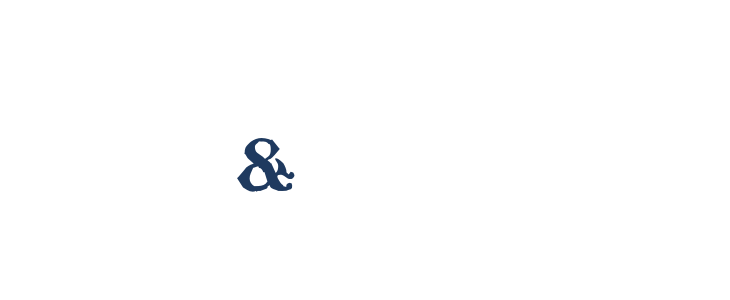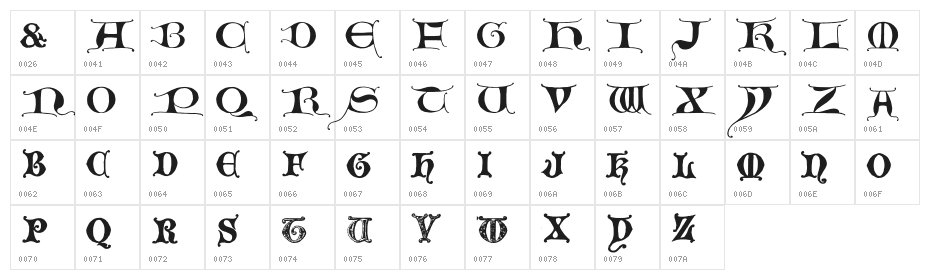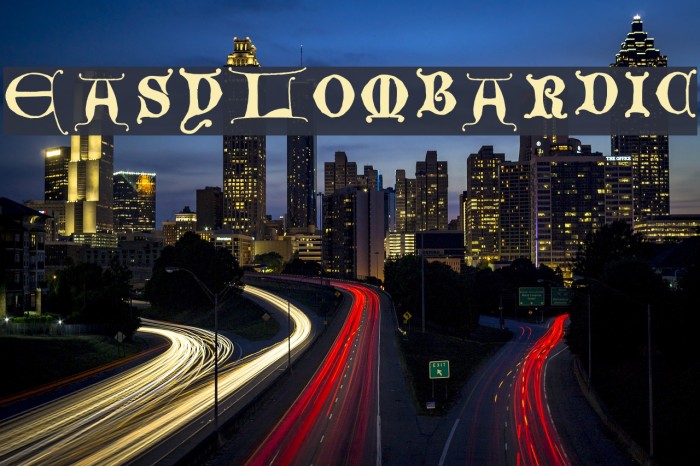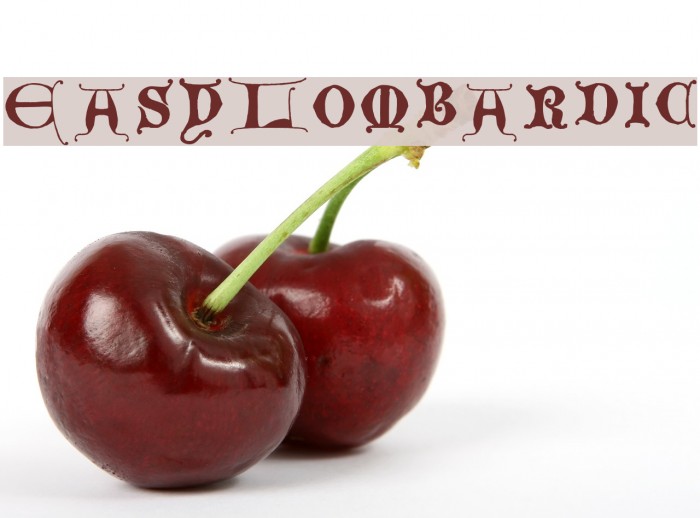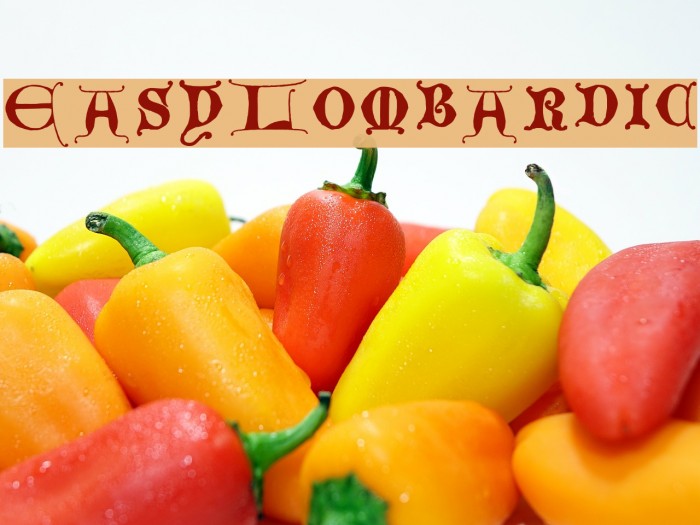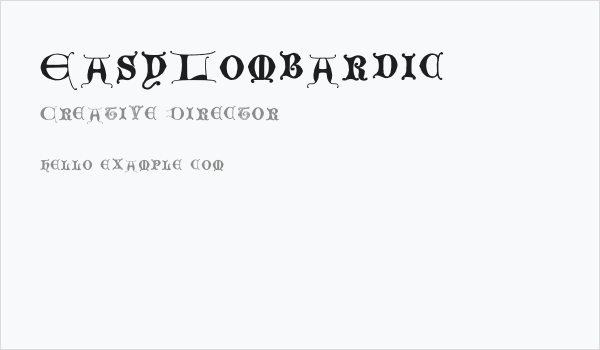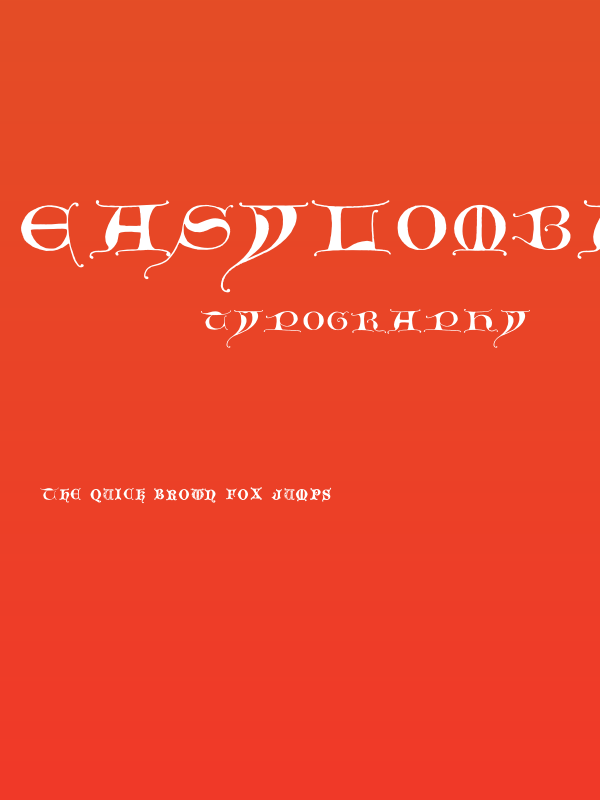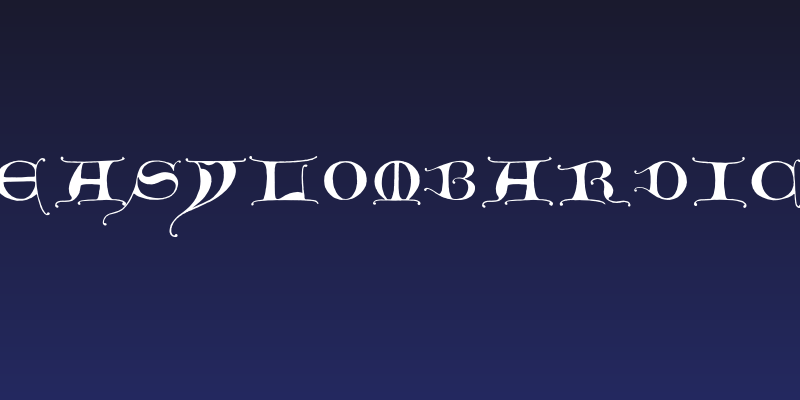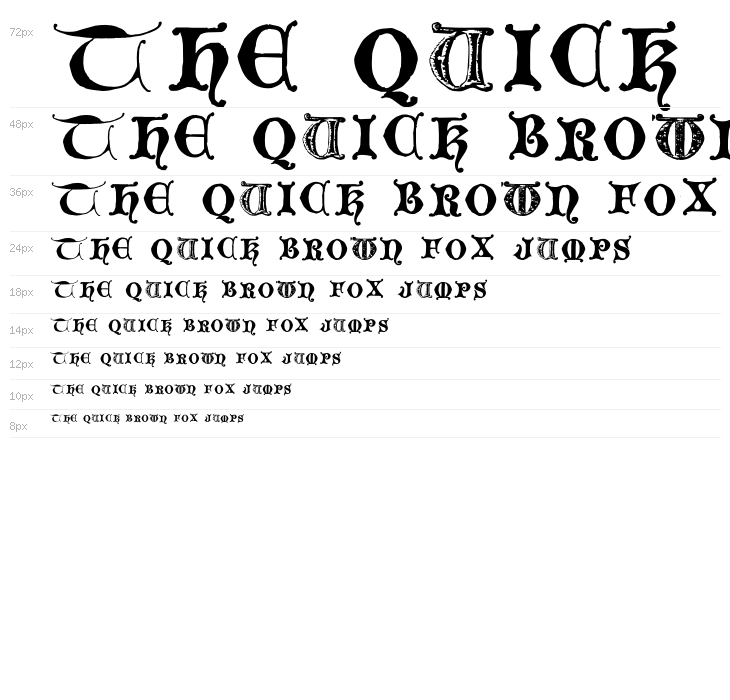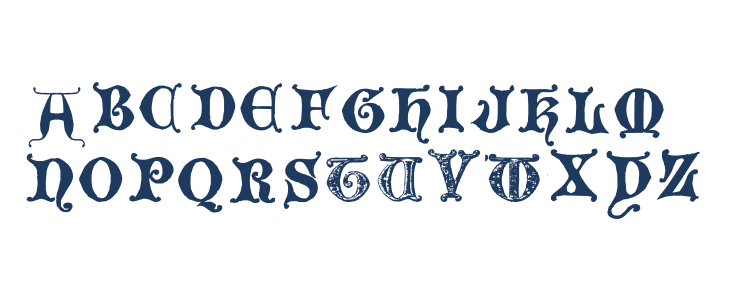
EasyLombardic Font
EasyLombardic Description
This font exhibits a distinct medieval and gothic aesthetic, characterized by its ornate and intricate letterforms. The uppercase letters feature elaborate serifs and decorative elements, reminiscent of historical scripts. The overall design is bold and striking, with a strong emphasis on vertical strokes and unique embellishments that give it a vintage and classical feel. The characters are well-spaced, allowing for readability despite their complex design. This font is particularly suited for projects that require a touch of historical elegance and grandeur.
| Proposed Projects | Ideal for historical-themed designs, book covers, posters, and branding that requires a vintage or medieval touch. |